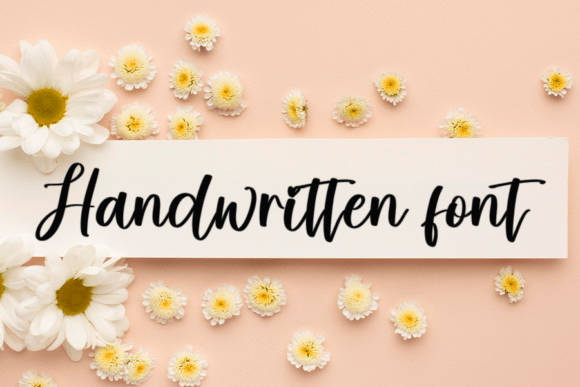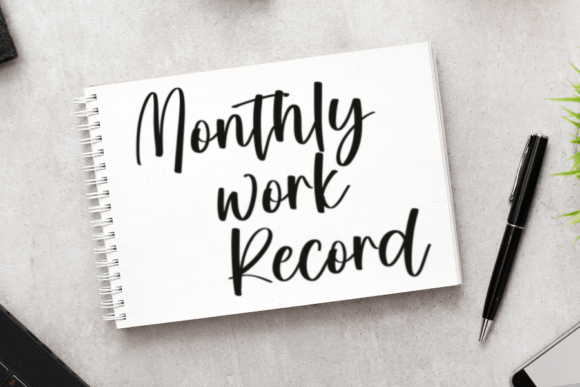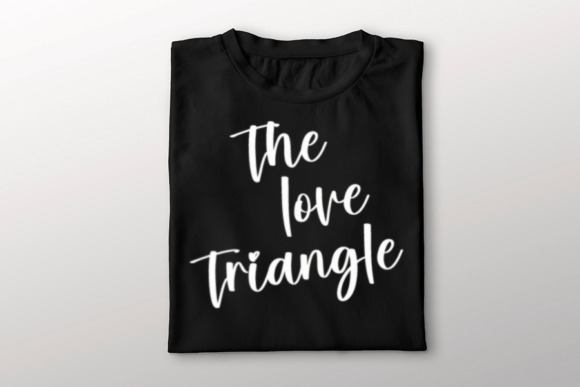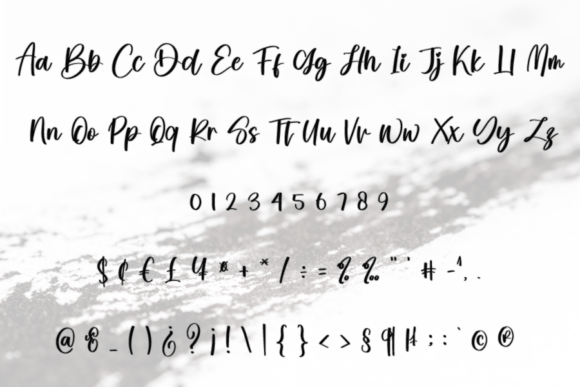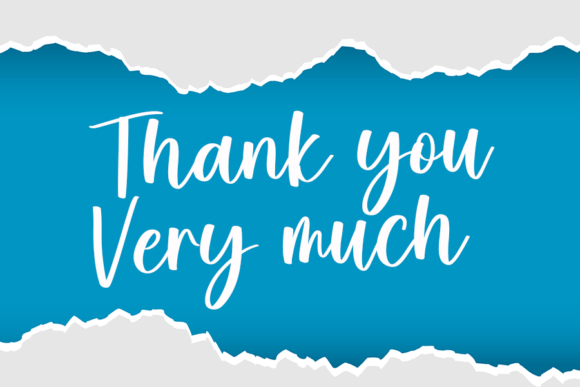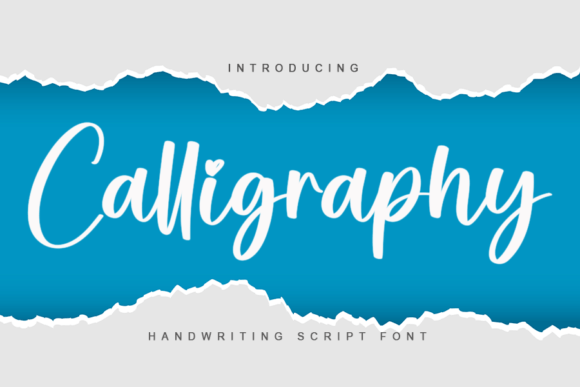
The Elegance of Calligraphy Font: A Designer’s Delight
I’ll never forget the time I was working on a wedding invitation project, and my client specifically asked for a font that exuded elegance and sophistication. I scoured the internet, tried out countless fonts, but nothing seemed to fit the bill. That was until I stumbled upon Calligraphy Font. ✨ It was love at first sight! The fluid strokes, the impeccable form, and the contemporary atmosphere instantly won me over. In this article, I’ll share my experience with Calligraphy Font, its features, and how to make the most of it in your designs.
A Personal Review: What I Love and What I Don’t
- ✅ Balanced and varied: Calligraphy Font strikes the perfect balance between classic and modern elements, making it versatile for various design projects.
- ✨ Beautifully crafted: The font’s attention to detail is impressive, with each letterform showcasing exceptional craftsmanship.
- 💻 Highly legible: Despite its elegant nature, Calligraphy Font remains clear and readable, even at smaller font sizes.
The Not-So-Good Stuff
- ⚠️ Limited use in body text: While Calligraphy Font shines in headings and titles, it may not be the best choice for lengthy body text due to its ornate nature.
- 🤔 Some glyphs may require adjustment: Depending on the project, you might need to tweak certain glyphs to ensure they fit perfectly with the rest of the text.
The Story Behind Calligraphy Font
Calligraphy Font was inspired by the timeless classics of calligraphy, with a modern twist. Its creator aimed to craft a font that would bring elegance and sophistication to any design project. With its impeccable form and balanced design, Calligraphy Font has become a go-to choice for designers seeking a stylish and versatile font.
| Font Name | Calligraphy Font |
| Author | Black line |
| What is Calligraphy Font best suited for? | Calligraphy Font is ideal for designs that require elegance and sophistication, such as wedding invitations, logos, and headings. |
| Can I use Calligraphy Font for body text? | While possible, Calligraphy Font is not recommended for lengthy body text due to its ornate nature. It’s best used for headings and titles. |
| Is Calligraphy Font available in different weights or styles? | Currently, Calligraphy Font is available in a single weight, but its versatility and range of glyphs make it suitable for various design applications. |